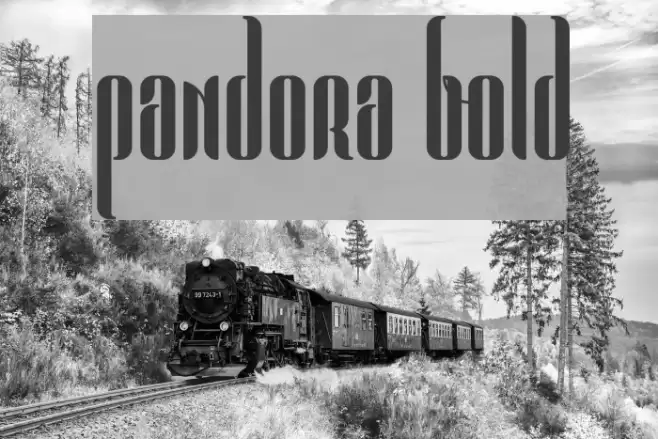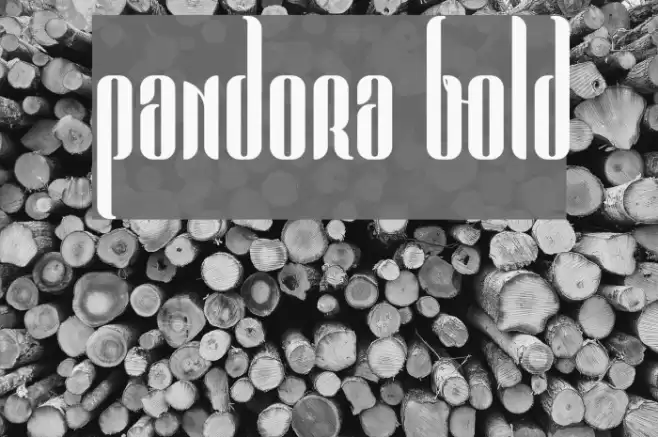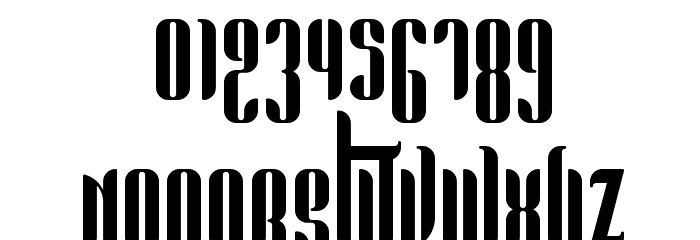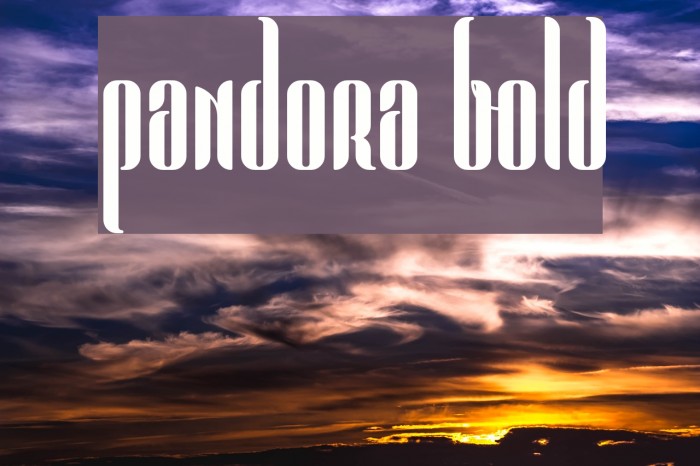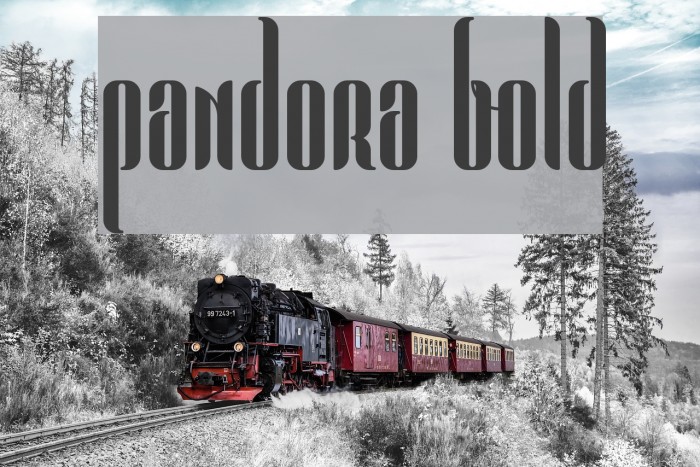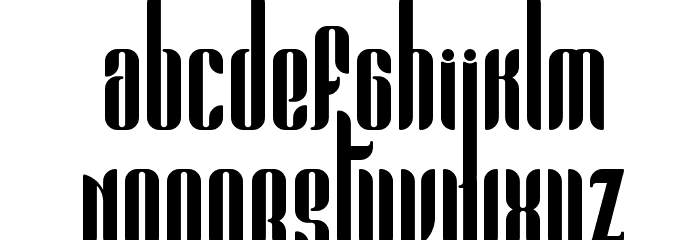
Pandora Bold Font
Pandora Bold Description
This font exhibits a bold, modern design with a distinctive vertical emphasis. The characters are elongated and narrow, creating a striking and unique appearance. The uppercase and lowercase letters share a consistent style, with sharp edges and minimal curves, giving the font a sleek and contemporary look. The numerals and special characters maintain this aesthetic, ensuring uniformity across all glyphs. The overall design is both artistic and functional, suitable for making a strong visual impact.
A bold, modern font with elongated, narrow characters and a vertical emphasis from Uncategorized fonts.
- Proposed Projects: Ideal for branding, posters, and headlines where a strong, modern aesthetic is desired.
- Character Spacing: Tight